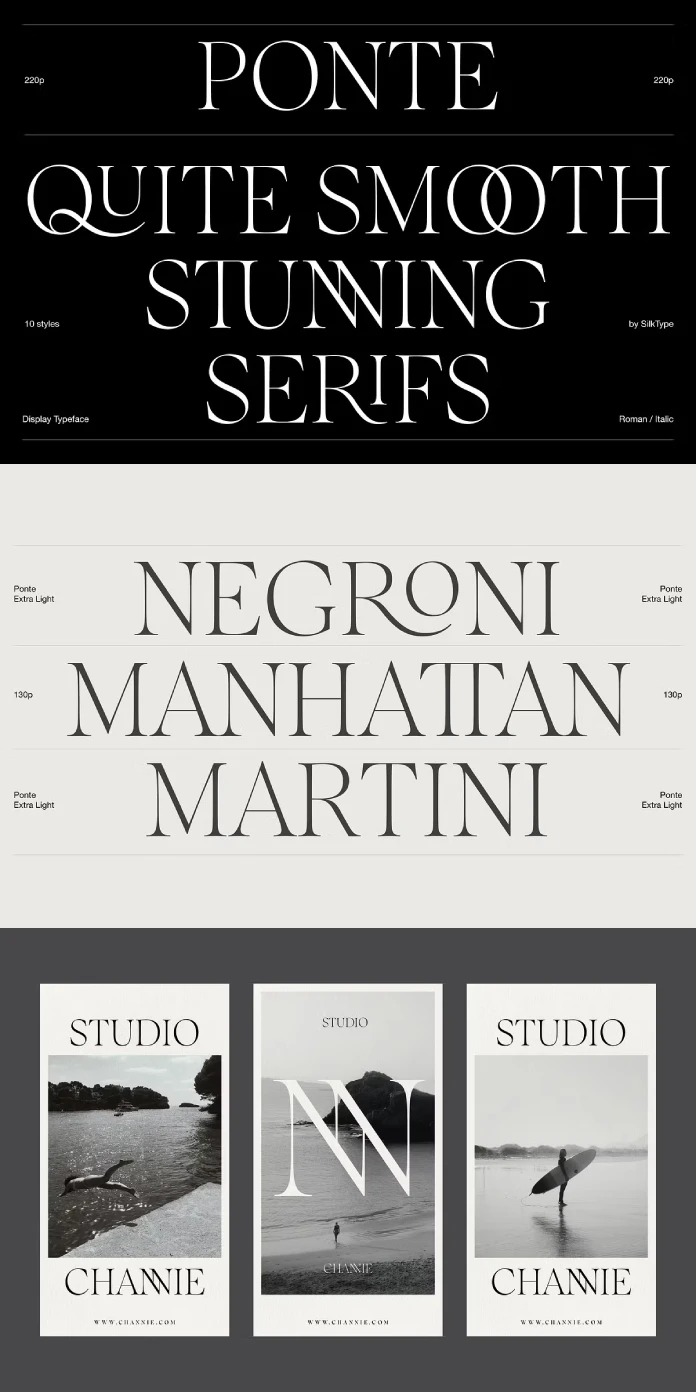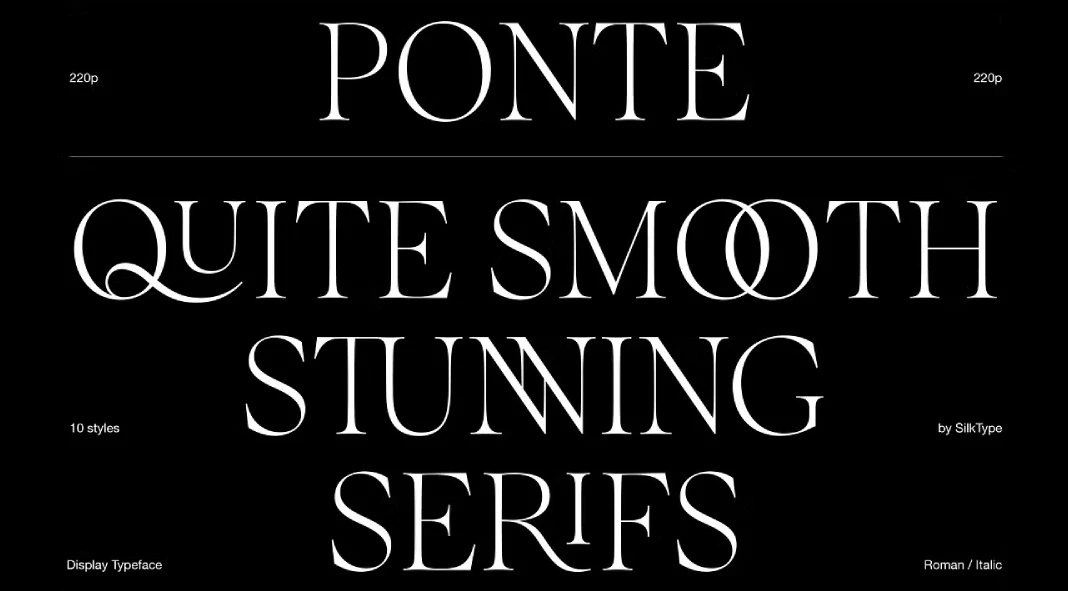
Ponte, a Modern Serif Masterpiece for Elegant Headlines: Exploring the Features, Versatility, and Design Potential of Silktype’s High-Contrast Display Typeface
Ponte by Silktype is a sophisticated high-contrast display typeface that brings modern elegance to design projects. This typeface family, with its refined serifs and impressive range of stylistic options, is specifically crafted for impactful, visually engaging headlines. Ponte’s clean lines, smooth curves, and carefully designed ligatures create a look that is both timeless and contemporary. As a bold entry into the world of display typefaces, Ponte offers designers a versatile toolset ideal for crafting luxurious and memorable visuals.
Key Features: A Font Family Rich in Detail and Style
Ponte’s design is grounded in simplicity yet enhanced with details that make it stand out among other serif fonts. It’s available in ten styles, each carefully crafted to offer flexibility while retaining the typeface’s core elegance. With weights ranging from extra light to bold, Ponte accommodates a variety of visual moods. The inclusion of Roman and italic variations in each weight adds even more depth, allowing designers to mix and match styles to create dynamic compositions.
One of Ponte’s standout features is its 80+ decorative ligatures, which add a subtle touch of flair to any layout. These ligatures create smooth, flowing connections between letters, making them an excellent choice for high-end branding, editorial layouts, and marketing materials that require a touch of refinement.
Design Characteristics: Smooth Serifs and High Contrast
The essence of Ponte lies in its high-contrast character shapes and smooth, flowing serifs. Each letter is designed with a careful balance of thick and thin lines, giving the typeface a crisp, sharp look that draws the eye. This high contrast makes Ponte ideal for large headlines, as it retains clarity and elegance even at larger sizes. The smooth serifs, meanwhile, soften the typeface’s bold look, making it feel approachable and sophisticated.
Silktype’s attention to detail is evident in the refined structure of each character, where the strokes are meticulously shaped to convey elegance without overwhelming complexity. Ponte’s rounded letterforms add a sense of softness, ensuring that the typeface can project authority without appearing too rigid.
Versatility: From Print to Digital
Ponte is a display typeface that shines in high-impact, headline-focused designs. Its clarity and refined details make it suitable for both print and digital media, lending a timeless quality to editorial spreads, website headers, branding, and advertising. Its versatility allows it to complement various design styles, from minimalistic layouts to more ornate compositions. The range of weights also ensures that Ponte can be adapted for different levels of emphasis, whether a project calls for a light, airy touch or a bold, commanding presence.
One of Ponte’s strengths is its adaptability across industries. Whether in fashion editorials, luxury branding, or high-end restaurant menus, Ponte’s style resonates with audiences seeking a refined aesthetic. Designers aiming to achieve a balance between tradition and modernity will find Ponte a fitting choice.
Performance and Readability: Best for Large Sizes
Given Ponte’s high contrast and intricate details, it’s best suited for large text sizes where its unique characteristics can be fully appreciated. While it is less appropriate for small body text due to its bold, decorative nature, Ponte excels in capturing attention in titles, headers, and other large-format uses. Its readability at large sizes is exceptional, with each letterform designed to maintain clarity and distinction, even in more intricate compositions.
The ligatures, though decorative, are designed to enhance readability rather than compromise it. They add a touch of elegance without distracting from the main text, making Ponte a perfect choice for applications where style and readability are equally important.
Pros and Cons of Using Ponte
Pros
- Elegant High-Contrast Design: Adds sophistication to any layout.
- Extensive Ligature Options: Offers designers creative flexibility.
- Versatile Weight Range: Five weights in both Roman and italic styles enable varied emphasis.
- Ideal for Luxury and Editorial Design: Works well in high-end branding and magazine layouts.
Cons
- Best Suited for Headlines Only: Limited usability in body text due to high contrast.
- Requires Large Sizes for Full Effect: Details can be lost at smaller scales.
A Sophisticated Choice for Modern Designers
Ponte stands out as a refined, high-contrast serif font family tailored for designers seeking an elegant, impactful aesthetic. Its combination of smooth serifs, decorative ligatures, and versatile weights makes it a powerful tool for crafting memorable headlines. While best suited for large text sizes, Ponte’s unique blend of modern and classic elements allows it to seamlessly integrate into a variety of design projects, from luxury branding to editorial layouts.